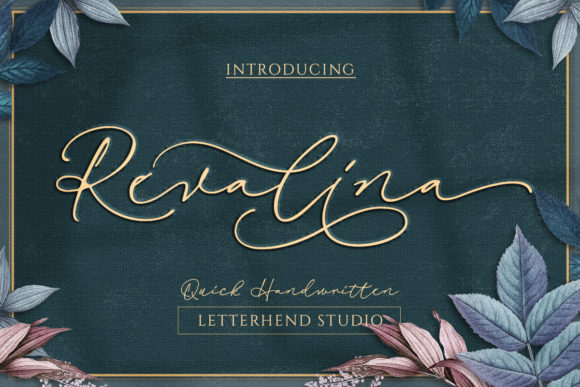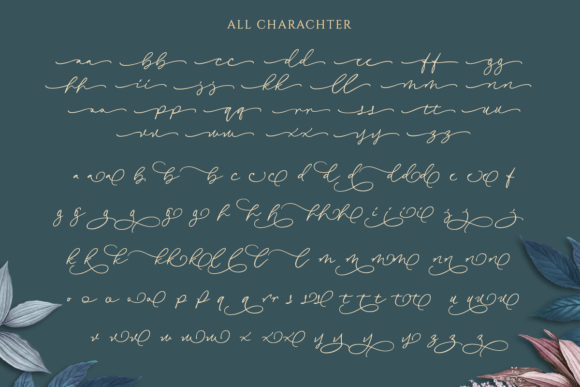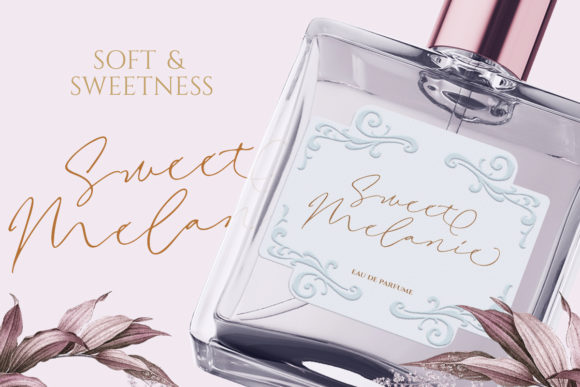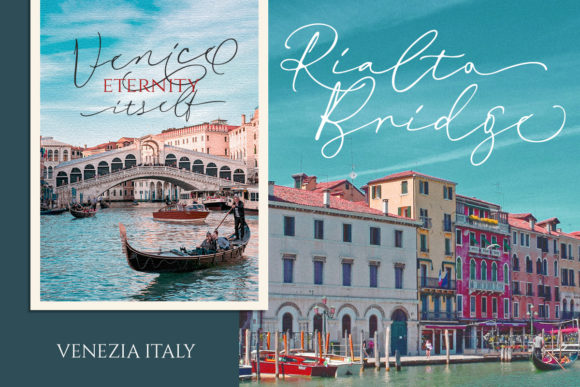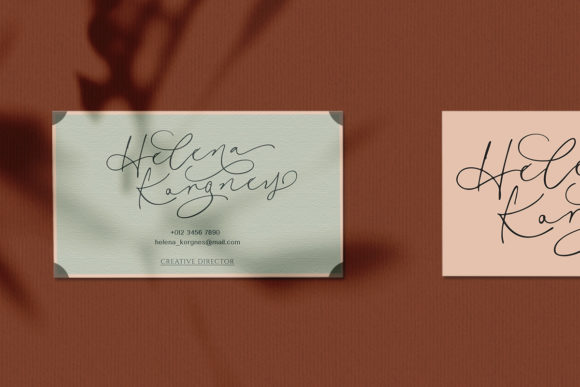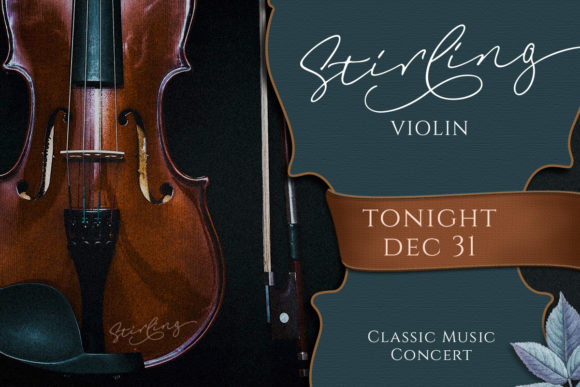
Revalina Font
About Revalina Font
Revalina is a poetic and dreamy handwritten font. Elegant and flowing, this font is ideal for book covers, magazine headlines and so much more. Revalina is PUA encoded which means you can access all of the glyphs and swashes with ease!